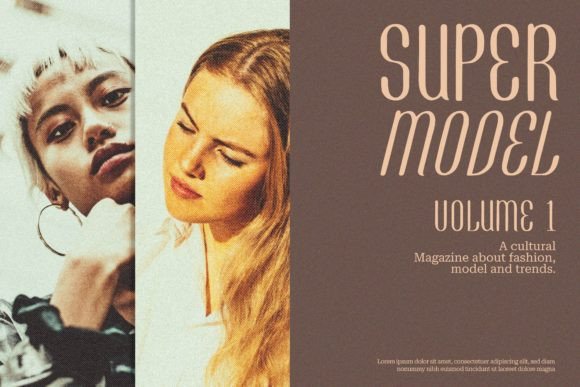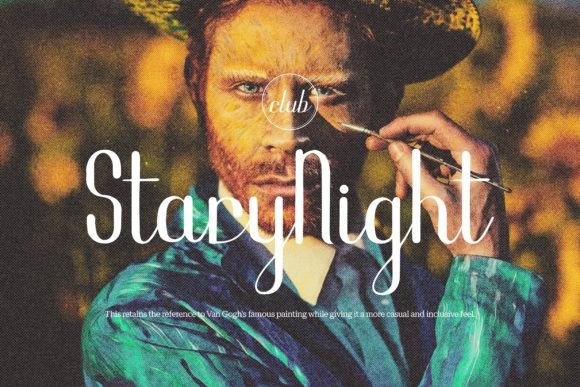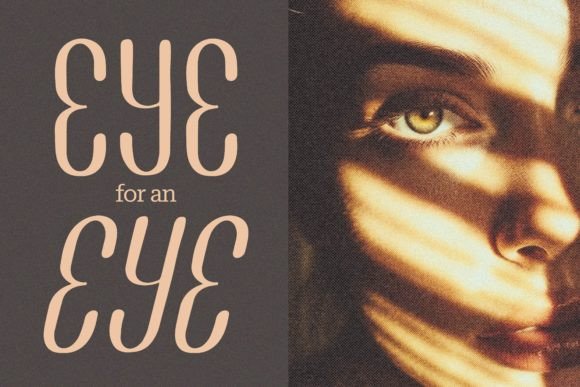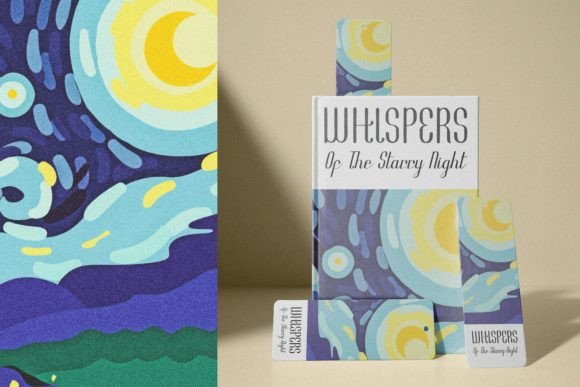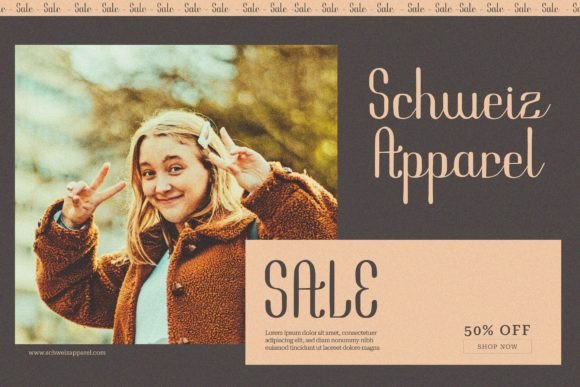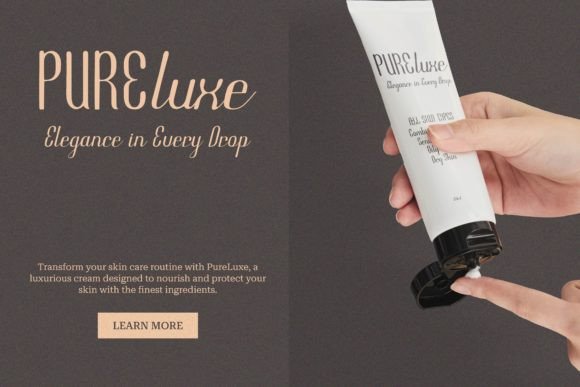
Introduction to Fangogh Font
Fangogh | Modern Script is suitable for any project such as logos, branding projects, homeware designs, product packaging, mugs, quotes, posters, shopping bags, t-shirts, book covers, name cards, invitation cards, greeting cards, labels, photography, watermark, special events, and all your other lovely projects that need a Modern Script taste.
Key Features of Fangogh Font
Why Choose Fangogh Font?
Fangogh Font offers exceptional quality and versatility, making it a valuable addition to your design toolkit. Whether you’re creating for personal projects or commercial use, Fangogh Font delivers professional results.